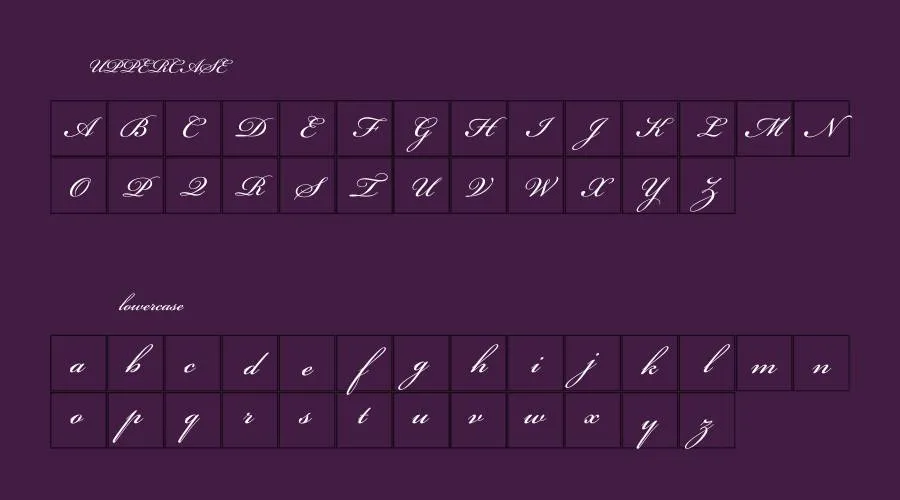
Bickham Script mm Font
About Bickham Script MM Font
Richard Lipton designed Bickham Script MM Font this classic font can be used to create beautiful calligraphic designs that will enhance your projects efficiently. Many enterprises are using this font for different projects.
The letters of this font, have a very sleek look there are few characters in every letter of this style that has the right height, width, and idealized space between the letters. The design of this font makes this lettering style an incredible choice for dynamic plans. This font is very close to the serial killer font.
This typeface is commonly used by graphic designers and advertising agencies. A stylish website can be created with this font imported into a CSS file.
In addition to reports, quotes, social media posts, logo designs, greeting cards, wedding cards, and art designs, this font style can be used in posters, banners, and posters. It is a calligraphic typeface that has simple, modern, and classic design.
In addition to reports, quotes, social media posts, logo designs, greeting cards, wedding cards, and art designs, this font style can be used in posters, banners, and posters. You can easily compare this font with the neuzeit grotesk font.
The designer of this typeface created this style to create the best project designs possible. Also, you can use this font style when creating labels, watermarks, and modern advertisements.
Name Bickham Script MM Font
Designer Richard Lipton
Style Script
• Bickham Script MM Regular
What kind of Bickham Script MM Font?
This is a calligraphic style and the designer is Richard Lipton. It has a unique style that will make your projects amazing.
Where can we use Bickham Script MM Typeface?
You can use this typeface for a wide range of designs, including logos, artwork, brands, fashion, websites and blogs, theme designs, and visiting cards.